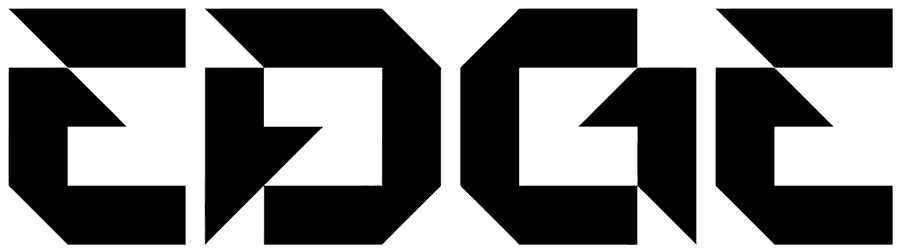
Edge Font
Designed byJohn Alexander
A reliable techno font such as Edge can support you in difficult moments by making designing high-end creative ideas, including street posters, stickers, editorial projects, stationery, or flyers much easier. Since this all-caps sci-fi font comes with a geometric style and sharp edges, it can reinforce a vibe of drama, seriousness, viability, or momentum in your artwork.
Edge is a minimalist geometric font with hard angles, it’s as much about the negative space as the positive. Inspired by the theory of cutting metal.